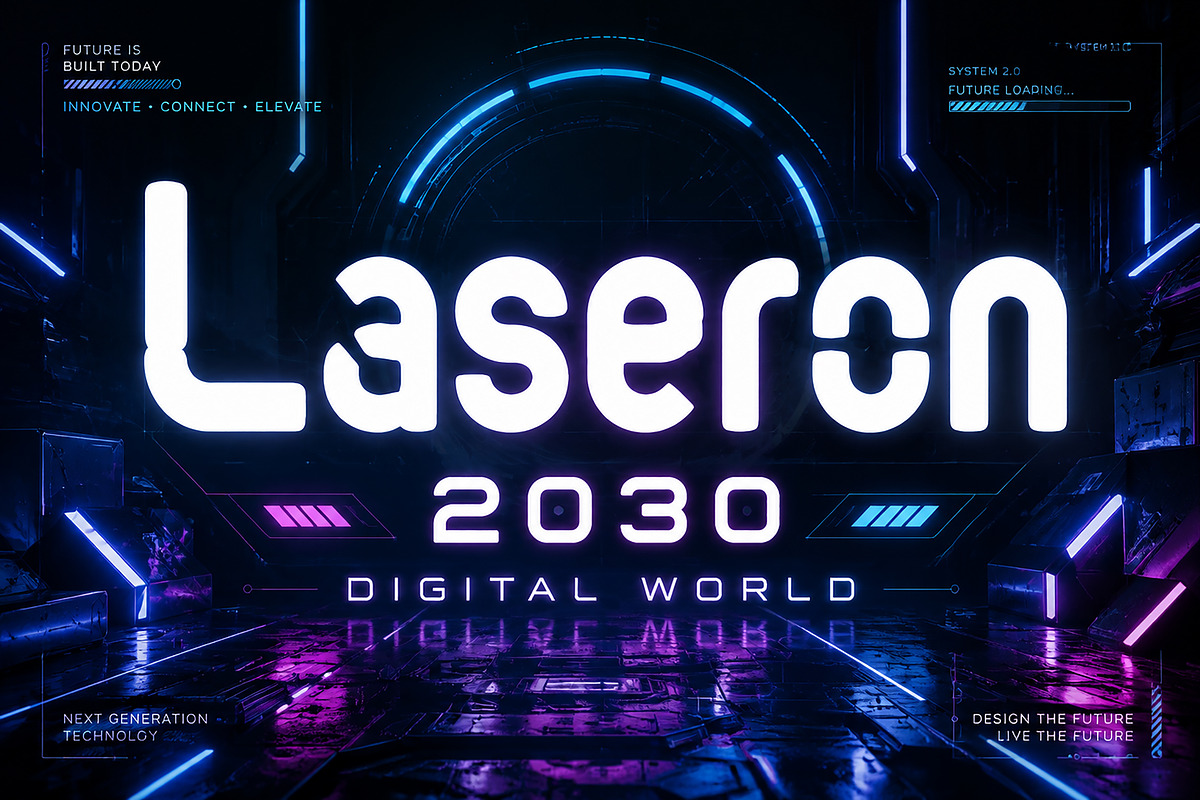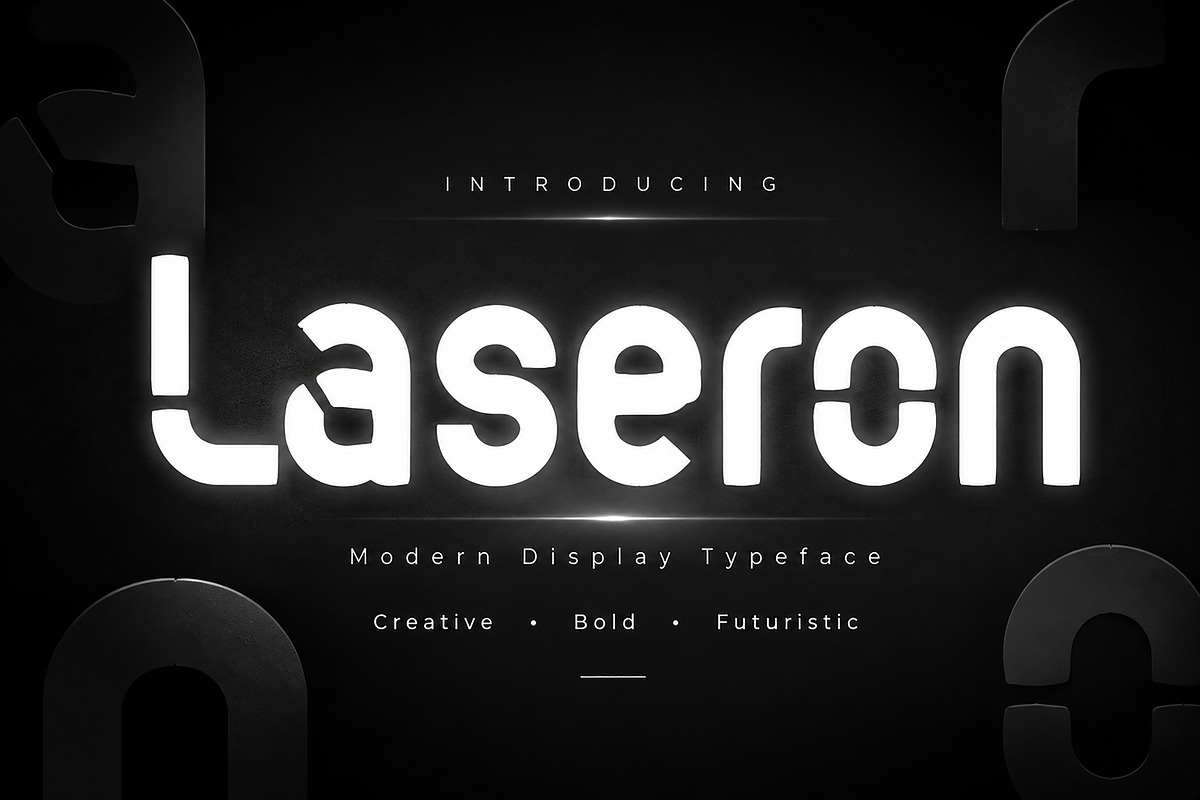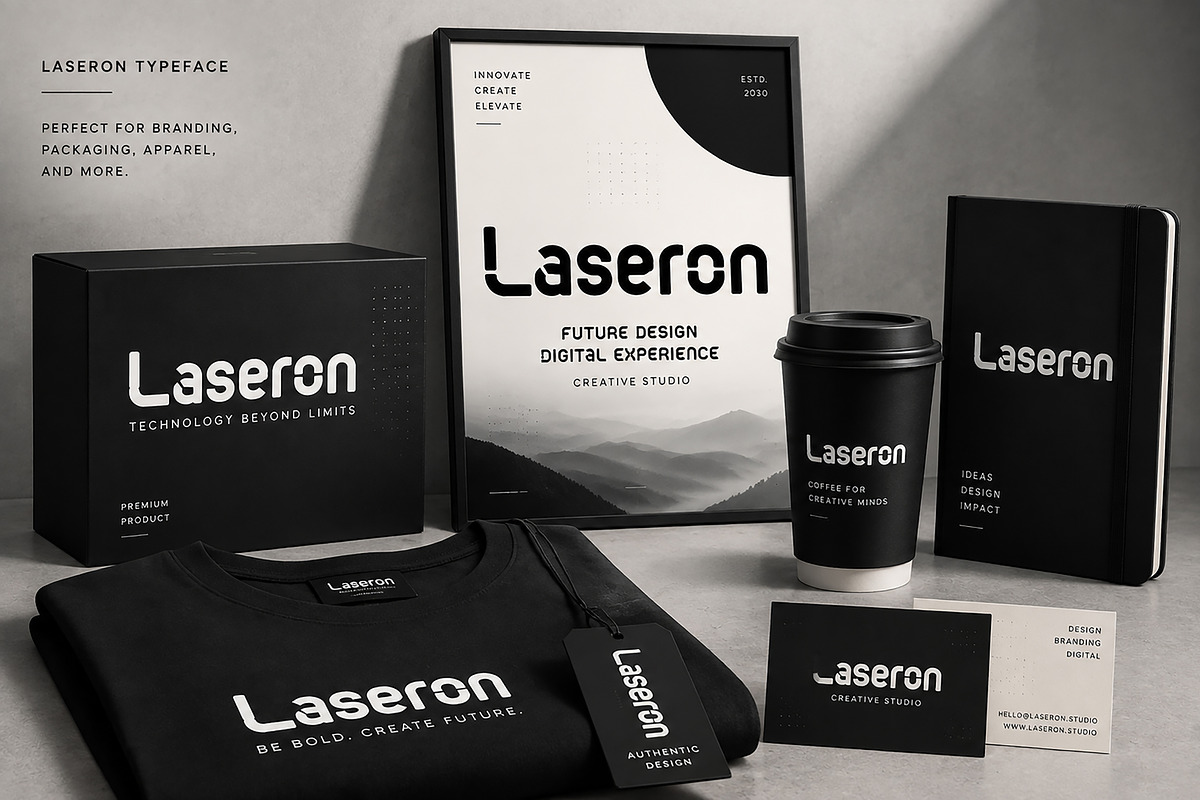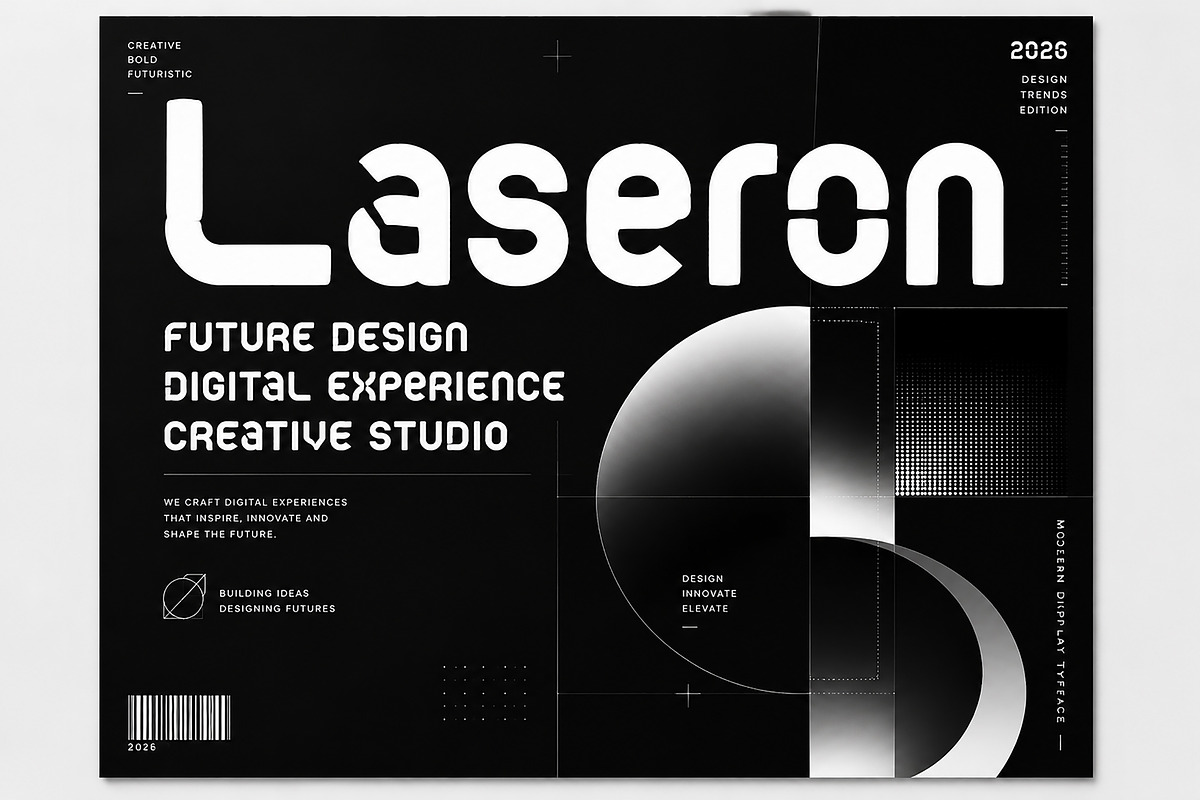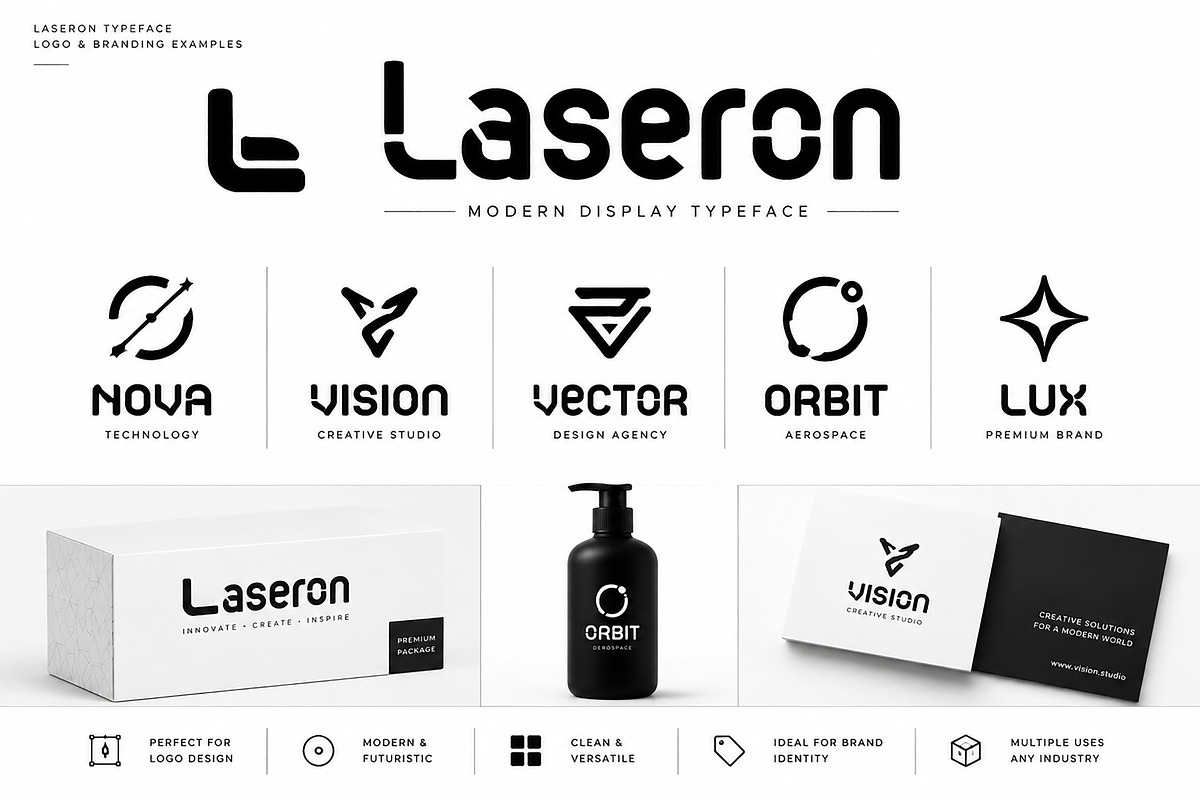
Laseron
Font Name: LASERON
Description:
LASERON is a modern futuristic display typeface designed with a bold geometric structure and unique letterforms. Its clean curves, strong presence, and contemporary style make it perfect for creating impactful logos, branding projects, posters, packaging, technology designs, gaming graphics, and digital experiences.
Designed for creators who want a distinctive and memorable visual identity, LASERON brings a powerful combination of creativity, modern aesthetics, and futuristic character to every project.
Brand Identity
Technology Branding
Gaming & Esports Graphics
Posters & Editorial Design
Apparel Design
Digital Products
Creative Studio Projects
Modern futuristic display font
Unique geometric letter design
Bold and eye-catching appearance
Professional branding style